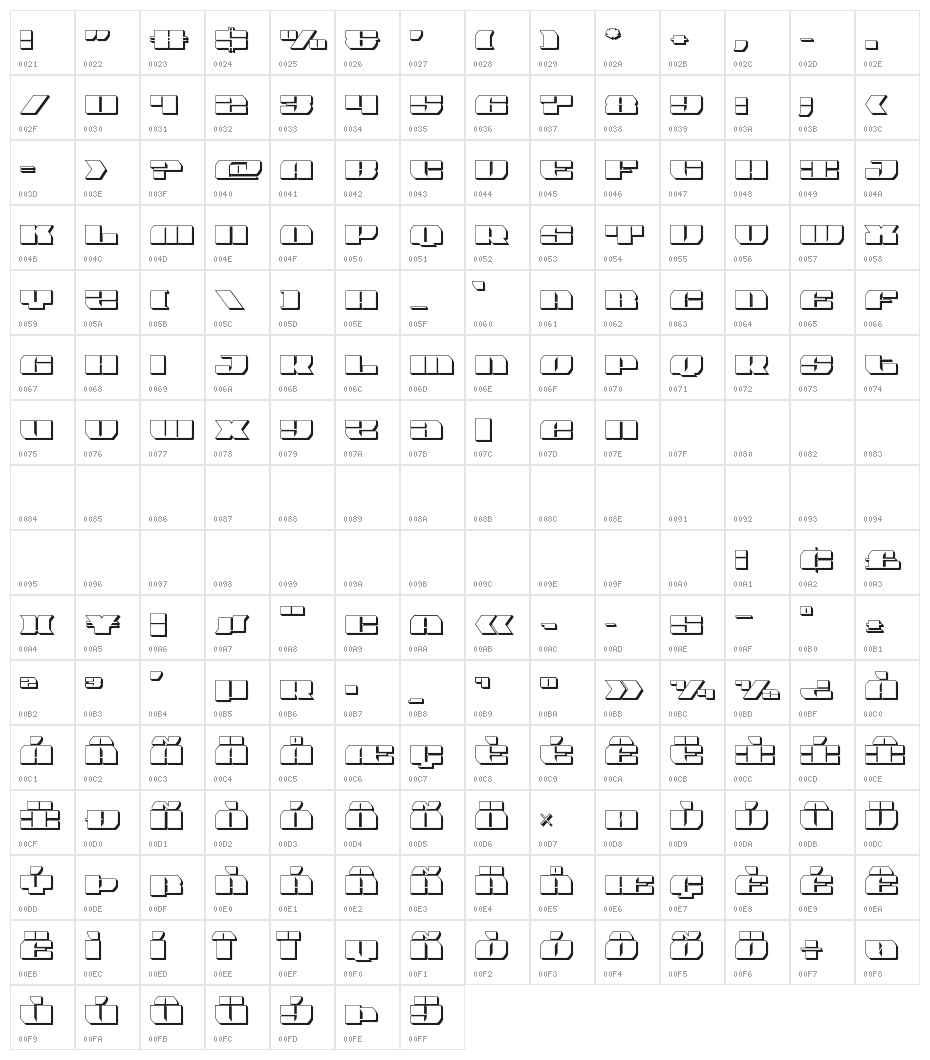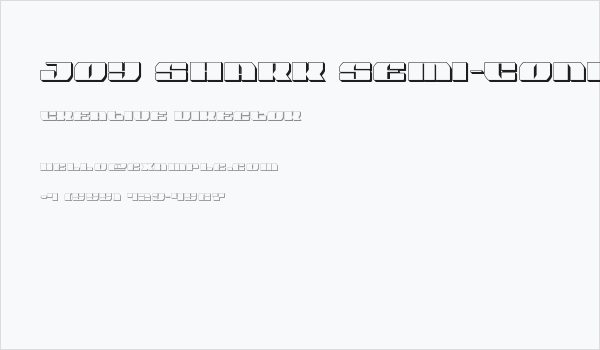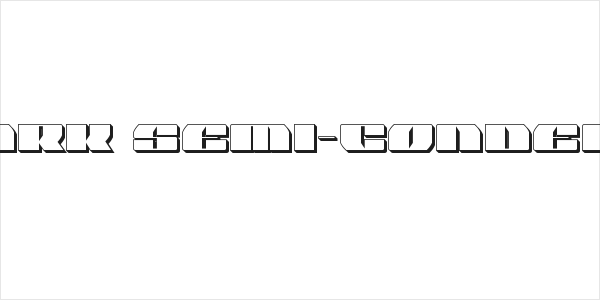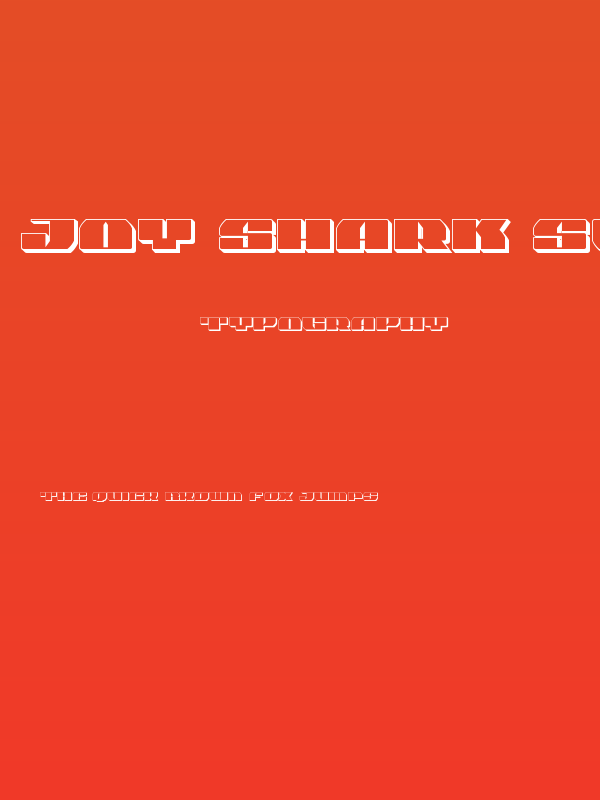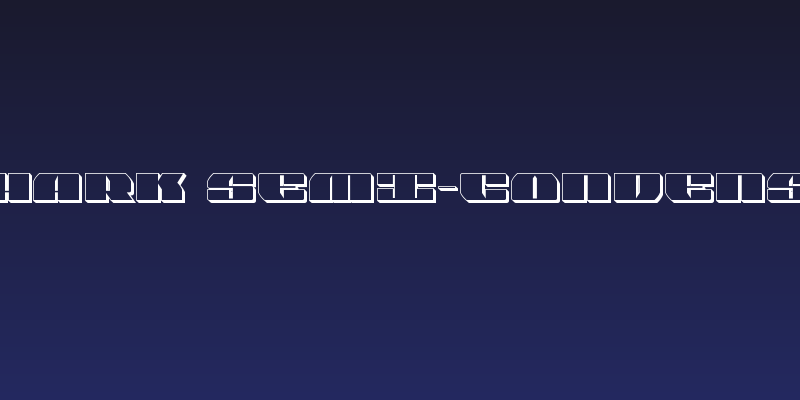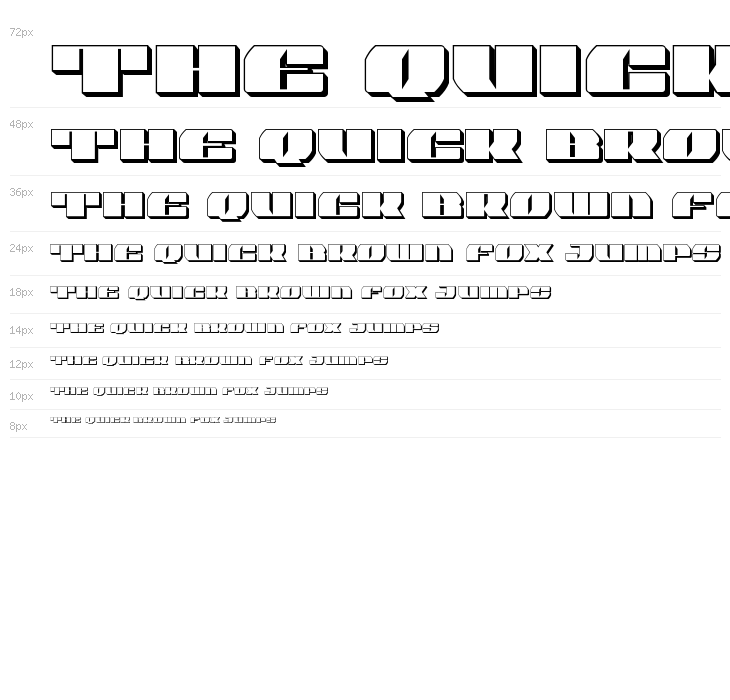
Joy Shark Semi-Condensed 3D Font
Joy Shark Semi-Condensed 3D Description
This font features a bold, three-dimensional appearance with a semi-condensed structure. The characters are blocky and geometric, with a distinct shadow effect that gives them a raised, embossed look. The uppercase and lowercase letters maintain a consistent style, emphasizing the 3D effect with clean lines and sharp angles. The numerals and special characters follow the same design principles, ensuring a cohesive look across all glyphs. This font's unique style makes it stand out, offering a modern twist on traditional block lettering.
| Proposed Projects | Ideal for projects requiring a modern, eye-catching display font, such as posters, logos, video game graphics, and headlines. |